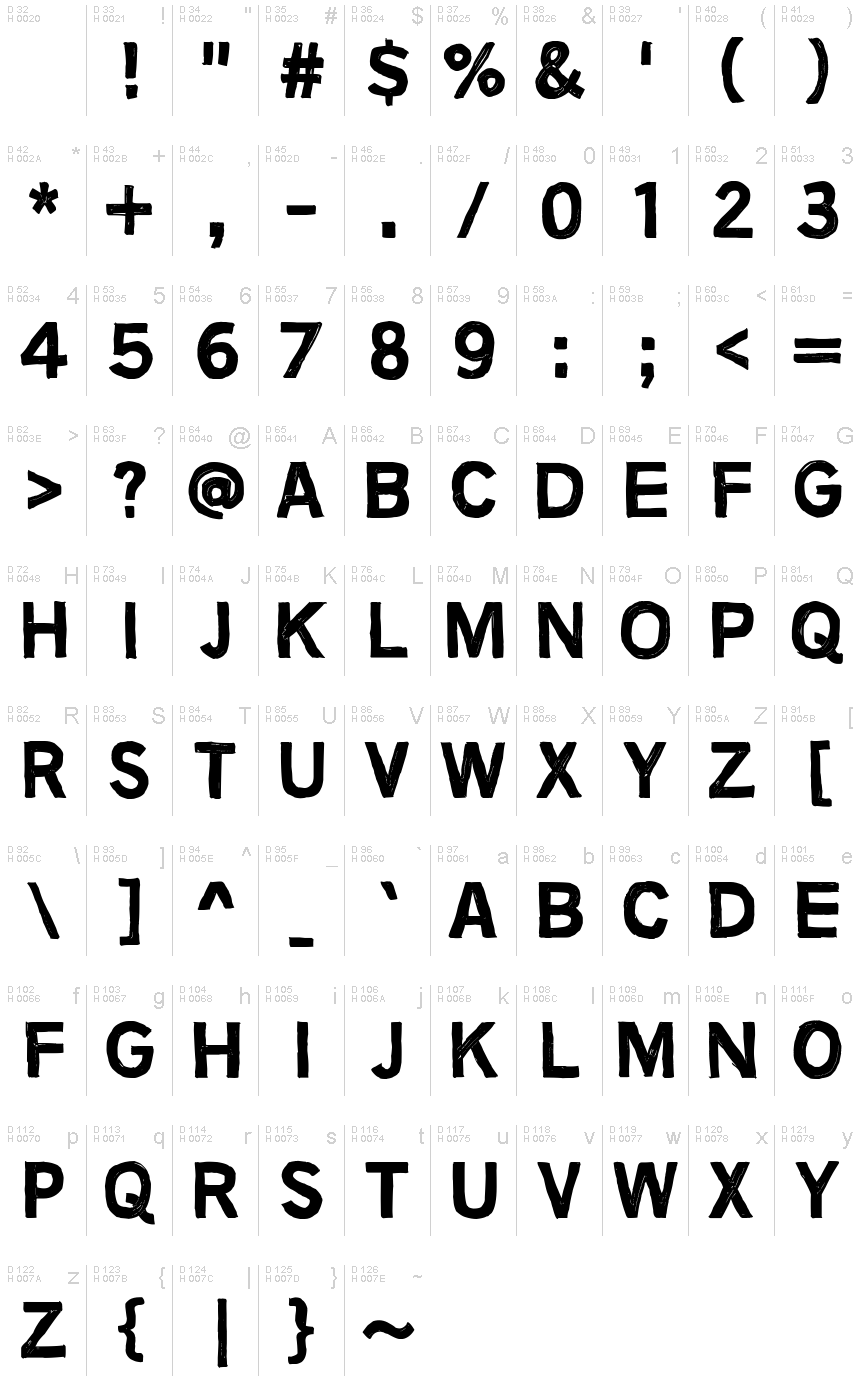
No more lies
"No More Lies" is a striking display font with a distinct eroded aesthetic. Designed by junkohanhero, this typeface exudes a raw, gritty energy that commands attention. The letterforms appear weathered and distressed, evoking a sense of truthfulness and authenticity. This font's uncompromising style lends itself well to editorial layouts, political messaging, and branding narratives that seek to convey a powerful, no-nonsense tone.
Its bold presence makes it a versatile choice for headlines, posters, and other high-impact design applications where a bold, unapologetic statement is desired.